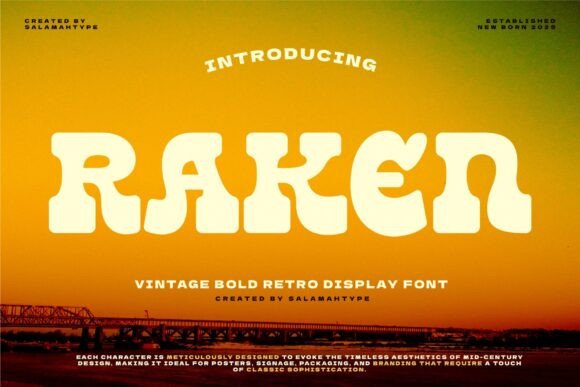
Raken: A Bold Slab Serif for Impactful Web Headlines
Two weeks ago, I was finalizing the hero section of a new coaching website — clean layout, warm photography, strong value proposition. But something felt off in the headline. The current sans serif looked safe, even generic. So I opened my font library and dropped in Raken. Instantly, the tone shifted: grounded, confident, quietly authoritative. Not flashy — just present. That’s when I knew this wasn’t just another display font. It was the right kind of boldness for a digital brand that values clarity and character.
Raken is a slab serif with vintage DNA — think mid-century signage or classic book covers — but refined for today’s screens. Its thick, uniform strokes, subtle bracketing, and generous x-height give it weight without heaviness. There’s no ornamentation, no exaggerated contrast — just honest structure and quiet confidence. It doesn’t shout; it commands attention through presence and proportion. In practice, that means Raken works best where you want users to pause, absorb, and remember — not skim.
I tested it across several real contexts: a boutique online store’s homepage banner, a course sales page’s main headline, and a portfolio site’s project title cards. In each case, Raken anchored the visual hierarchy beautifully. On the coaching site, pairing it with a neutral sans serif (like Inter or Public Sans) created instant contrast: Raken handled the “who you are,” while the body font handled the “what you do.” No competing personalities — just intentional rhythm.
Readability on mobile? Surprisingly solid — if used intentionally. At 32px and above on desktop, Raken shines. On mobile, I kept it at 28px minimum with generous line-height and letter-spacing. It’s not built for long paragraphs or small interface labels, and that’s okay. Its strength lies in short, high-impact moments: hero titles, section headers (“What You’ll Learn,” “Our Approach”), CTA buttons (“Start Your Journey,” “Join the Waitlist”), and branded graphics for social or email banners. Trying to squeeze it into navigation menus or form fields diluted its impact — a reminder that great typography isn’t about using a font everywhere, but using it where it matters most.
One unexpected win? Dark mode compatibility. Raken holds up remarkably well over deep charcoal or navy backgrounds — its slab serifs create just enough texture to avoid blending in, while its open counters keep letters legible. Over light image overlays, I added a subtle text shadow (1px black at 30% opacity) for insurance, but rarely needed more than that. On pure white or soft cream backgrounds, it feels crisp and editorial — like a well-designed magazine spread translated to screen.
Font pairing is where Raken really sings. As a display font, it thrives alongside simple, highly legible sans serifs for body copy. I avoided other serifs — especially high-contrast ones — which created visual tension instead of harmony. For a digital brand kit I recently built, I paired Raken with a variable sans for headings and captions, then used its lighter weight (if available) for subheads — a subtle nod to hierarchy without sacrificing cohesion. If your version includes alternates or stylistic sets, test them in context: some include slightly wider characters or adjusted spacing that improve fit in tight hero layouts.
In a landing page redesign for a small business offering handmade ceramics, Raken transformed the “About” section header from forgettable to memorable. The word “Crafted” in Raken, set over a muted clay-toned background, immediately signaled intentionality — no extra copy needed. Users didn’t just read it; they paused. That’s the quiet power of a well-chosen slab serif: it adds tonal depth before a single sentence is parsed.
It’s worth noting Raken isn’t meant for logos — its personality is strong, but its structure isn’t built for extreme scaling down or monochrome reproduction at tiny sizes. Save it for headlines, banners, and key visual anchors. Let your logo breathe with something simpler, then let Raken amplify your message elsewhere.
For blog headers or campaign landing pages, Raken adds editorial weight without pretension. On a recent newsletter signup graphic, using Raken for the headline (“Design With Intention”) and a clean sans for the supporting line created a balanced, trustworthy impression — the kind that encourages scrolling, not bouncing. And because it’s a display font, it loads quickly as a single weight — no performance trade-offs for personality.
If you’re weighing Raken against other slab serifs, consider its balance: less rigid than Rockwell, warmer than Courier Prime, more distinctive than Roboto Slab. It doesn’t try to be everything — and that’s why it works so well in focused, human-centered layouts. It supports the content instead of competing with it.
Ultimately, choosing Raken wasn’t about chasing trendiness. It was about finding a typeface that matched the voice of the brand I was designing for — thoughtful, experienced, unhurried. In digital spaces where attention is fragmented and trust is earned in milliseconds, a font like Raken doesn’t just look good. It signals care — in the spacing, the weight, the quiet confidence of every letterform. And that’s never just decoration. It’s part of the experience.